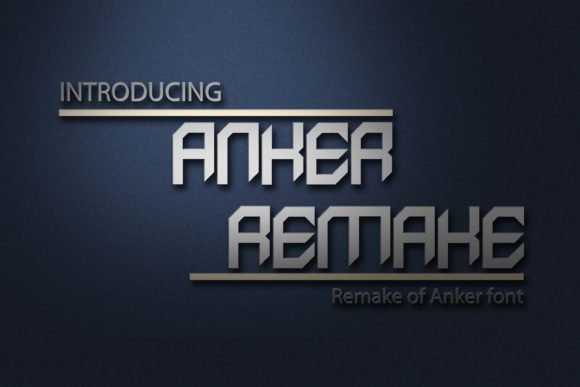
Introduction to Anker Remake Font
Anker Remake is a font reboot of the classic β€œAnker”.
This updated version refines both letters, numbers, symbols and kerning .